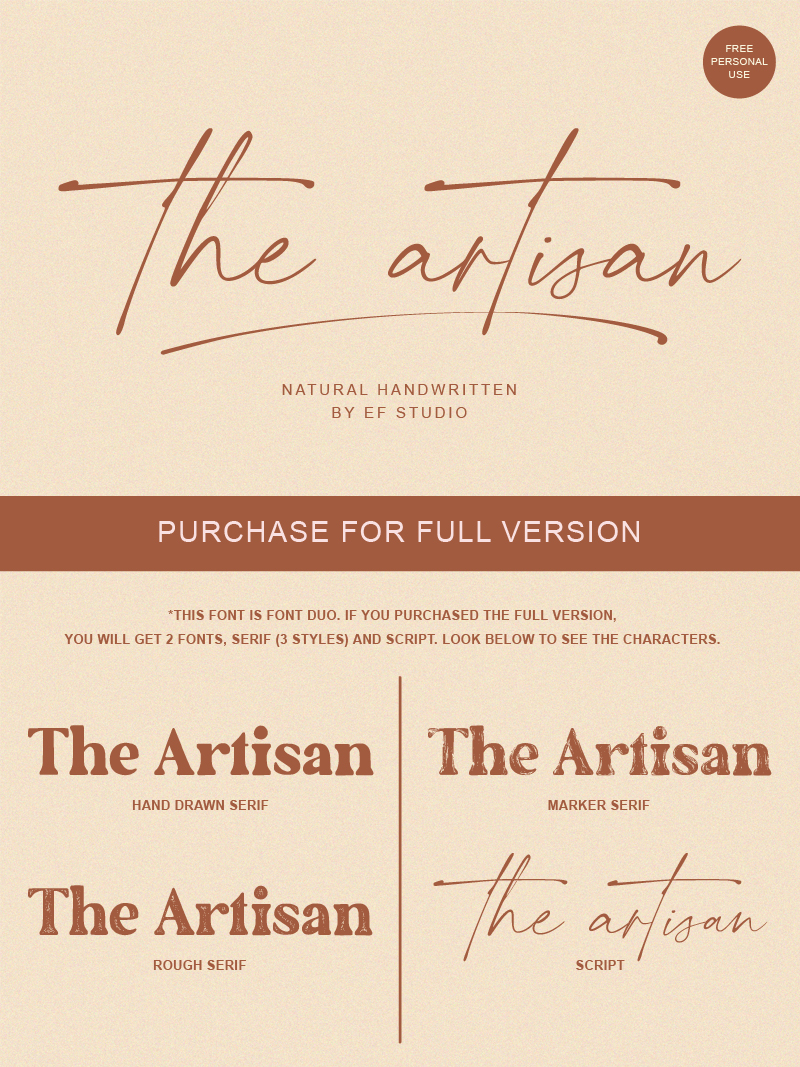
the artisan
The Artisan is a beautifully crafted handwritten script font designed by Ef Studio. This font is perfect for adding a touch of elegance and sophistication to your designs. The thin, smoothly flowing lines make it easy to read and give it a unique and personalized feel.
Whether you're designing a logo, creating invitations, or adding text to a website, The Artisan is a versatile font that will enhance any project. The handwritten style adds a personal touch that will make your designs stand out.